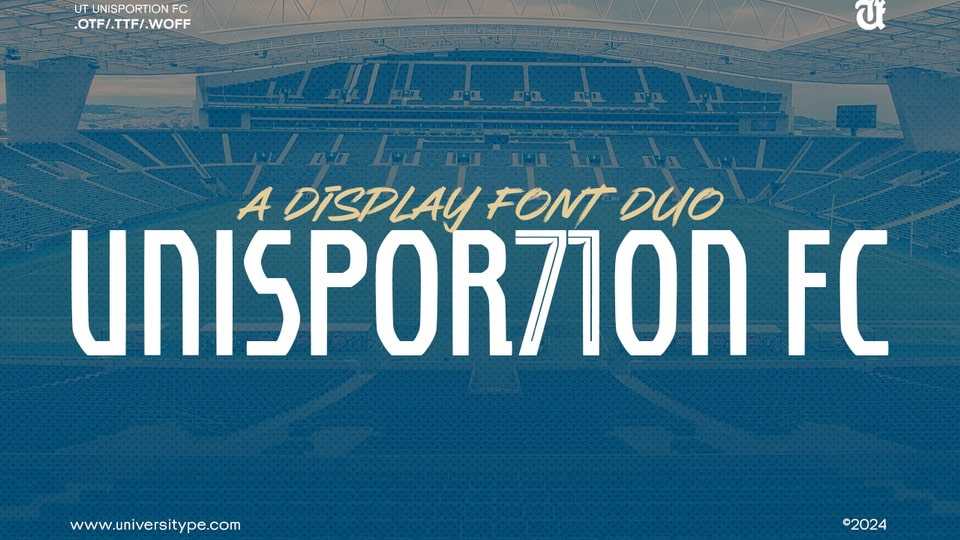
Download UT Unisportion FC font, a dashing typeface that packs a punch. Its captivating appeal lies in the fusion of dynamic athleticism and the classical elegance inherent in Buginese maritime architecture.
Designer: Universitype Foundry